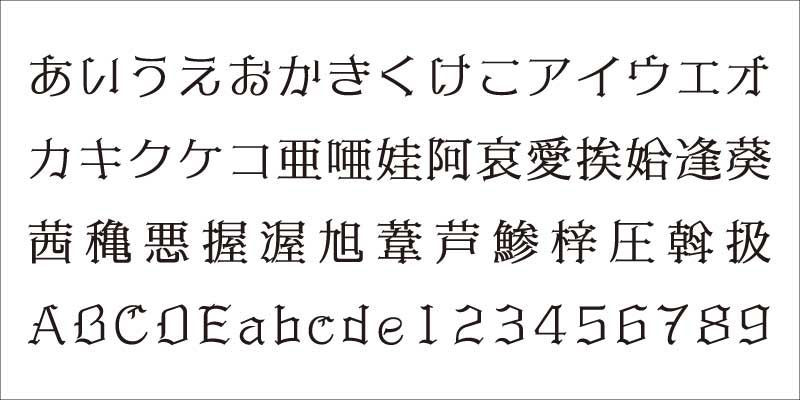
VDL-GothicMincho Font Free Download
VDL-GothicMincho Font Free Download is a beautifully balanced typeface that blends the clean structure of Gothic styles with the elegance of traditional Mincho strokes. This unique fusion creates a sophisticated and readable font that's ideal for a variety of design projects—from editorial layouts and book covers to branding and web design.
With its distinctive contrast between thick and thin lines, VDL-GothicMincho delivers a refined visual experience that draws attention without overwhelming the viewer. It’s perfect for both digital and print media, offering full character support and multilingual compatibility to suit global projects.